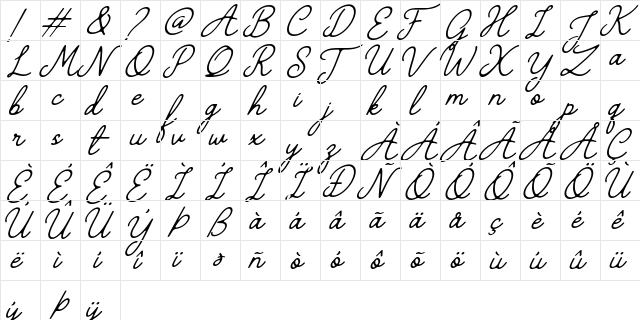
The Grateful 4 Regular
| Designer | Sronstudio |
Design Context for The Grateful 4 Typeface
The Grateful 4 is a composed and adaptable typeface that performs quietly and consistently across a wide range of design contexts.